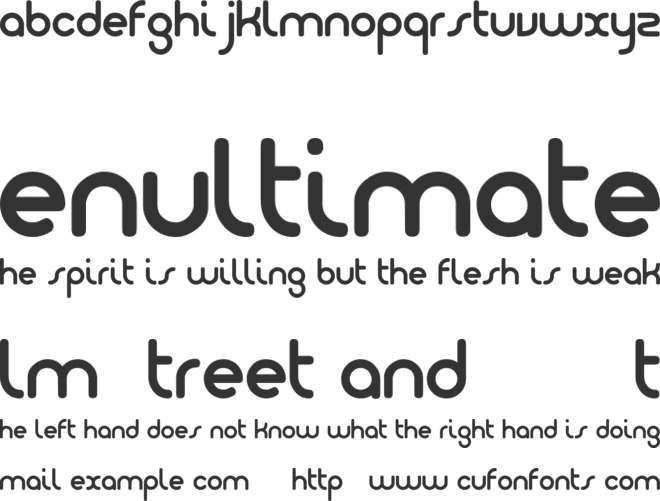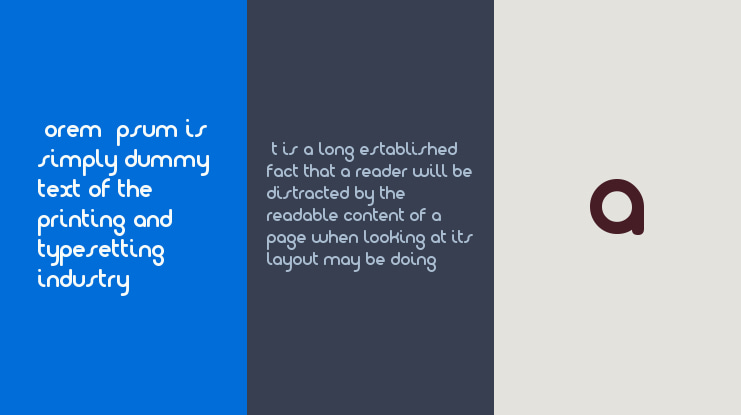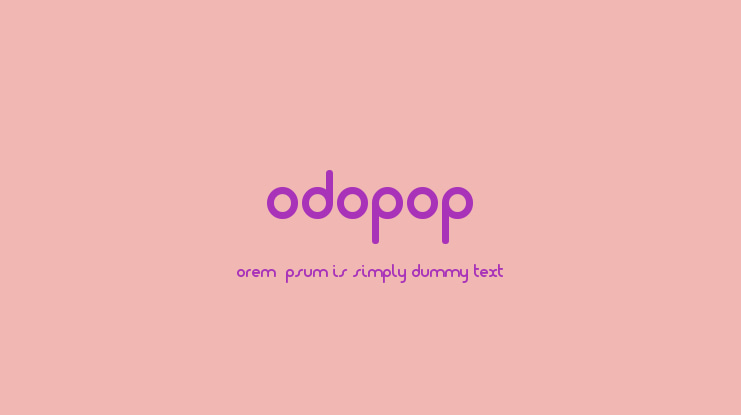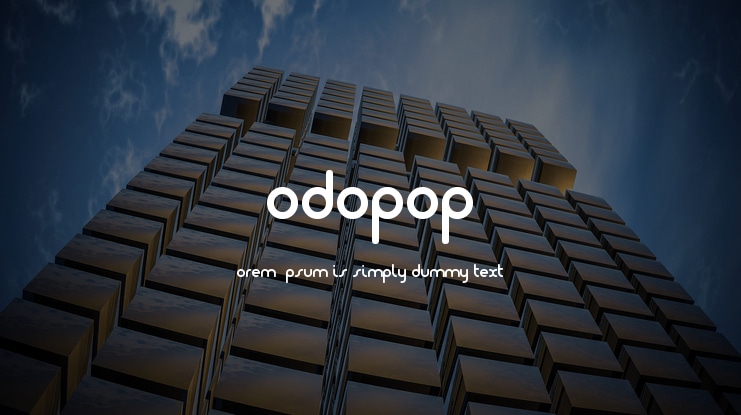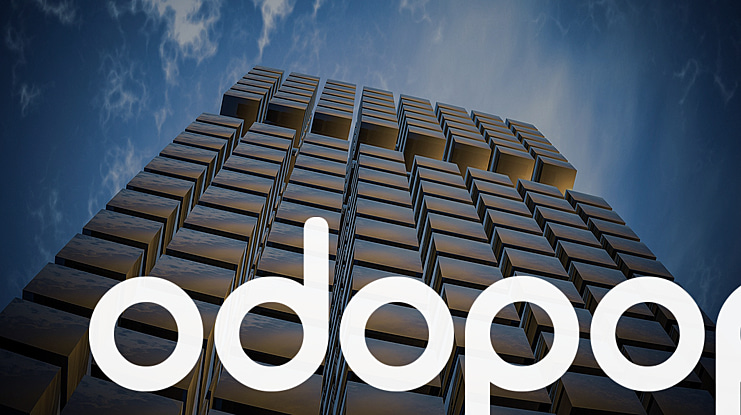
Dodopop Font Family
Dodopop Font Duo is a combination of sans & script fonts. It’s perfect for latterhead, vintage apparel design, headline, logotype, poster, card, and etc. You'll get a 3 font style, Regular, Italic, and Script. This Free version just lowercase font. If you want it in full version click link below: